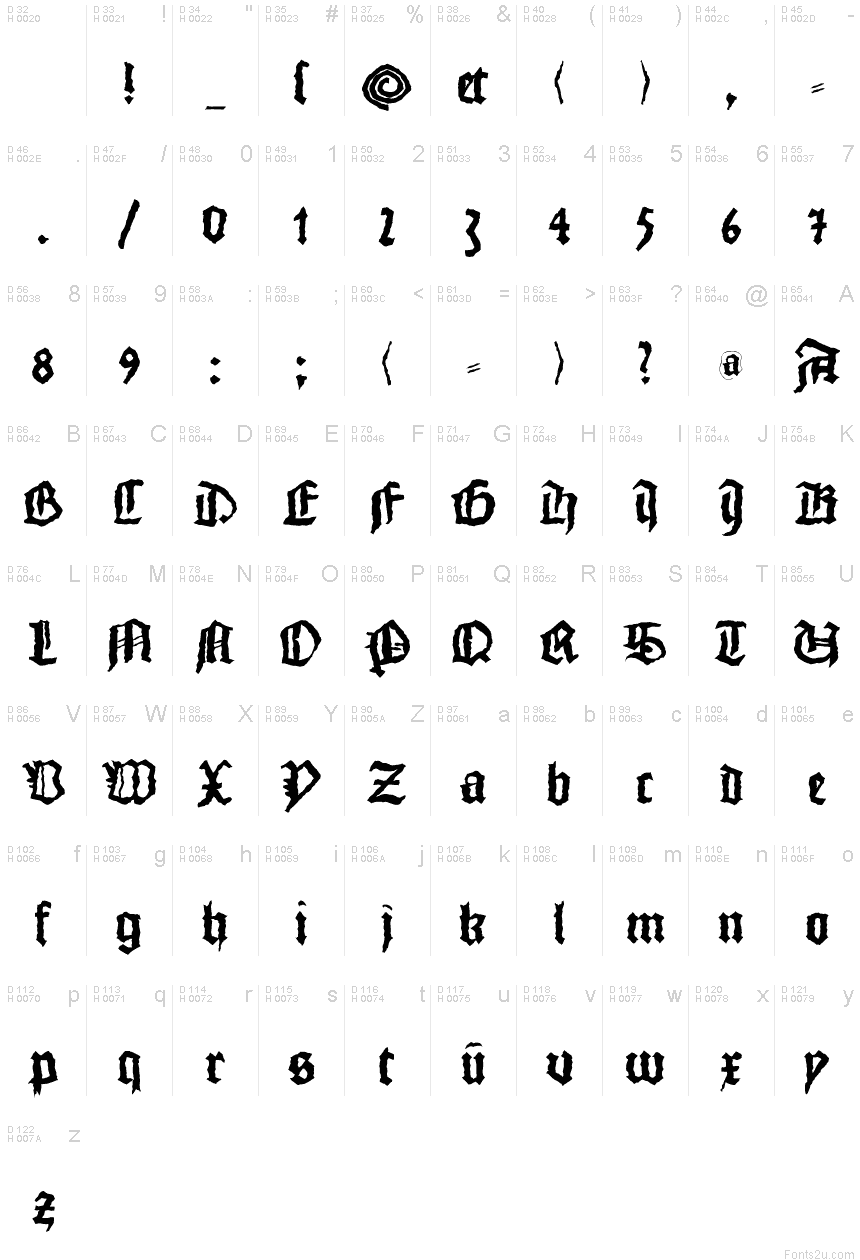
MonksWriting
Monks Writing, by M. Klein, is a free medieval blackletter font with the blunt, carved rhythm of manuscript titling and old shop signs. The letters lean on jagged angles, broken edges, and compact dark shapes, so the alphabet feels hewn rather than drawn, with a rough, ink-heavy texture that keeps it from turning polite.
This free font fits beer labels, fantasy book covers, band logos, event posters, and chapter-opening title cards where a stern Gothic note helps carry the mood. It also suits monograms and short headlines, because the caps lock together into dense, dramatic words that look best when given room to loom.